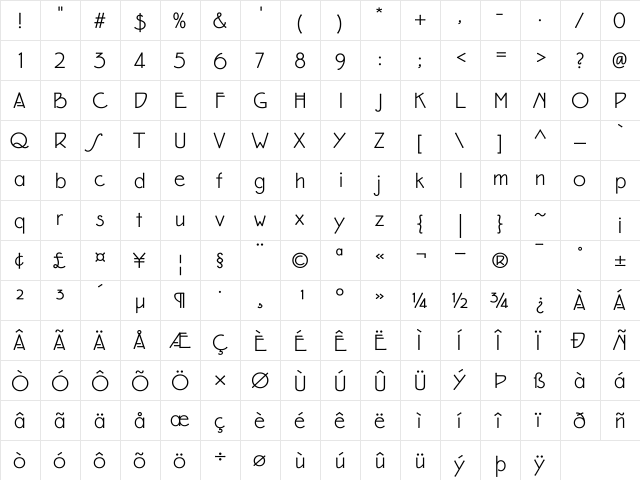
Eaglefeather Normal
Design Context for Eaglefeather Typeface
Eaglefeather takes a measured approach to typography — its balanced proportions and neutral character make it a reliable workhorse for both digital and print work.